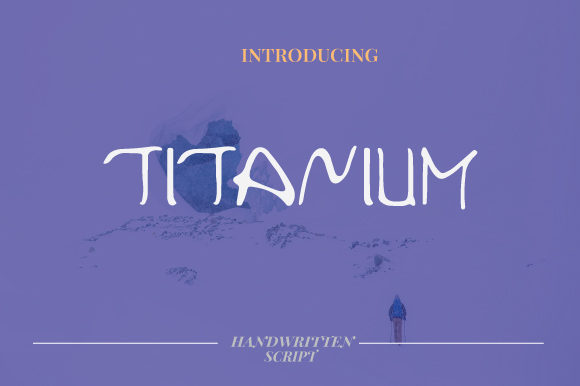
Titanium Font
About Titanium Font
Titanium embodies fun, quirkiness and authenticity. This enchanting handwritten font will turn any creative idea into a true standout.